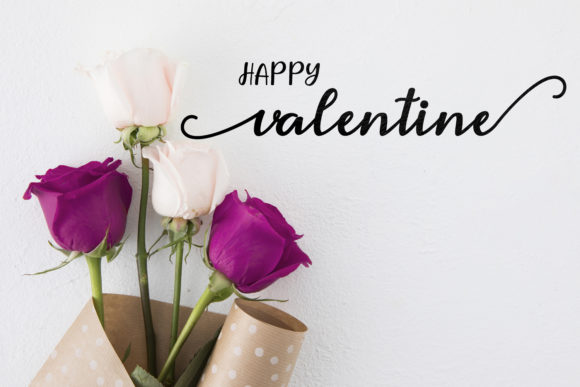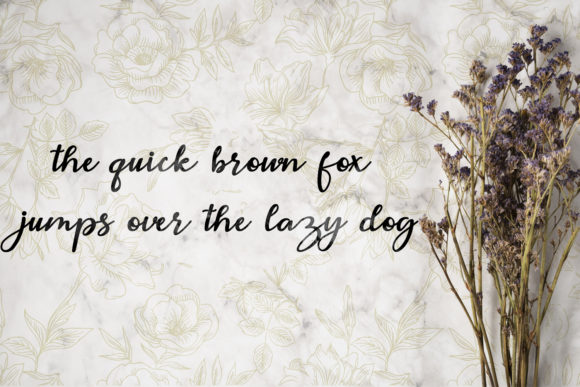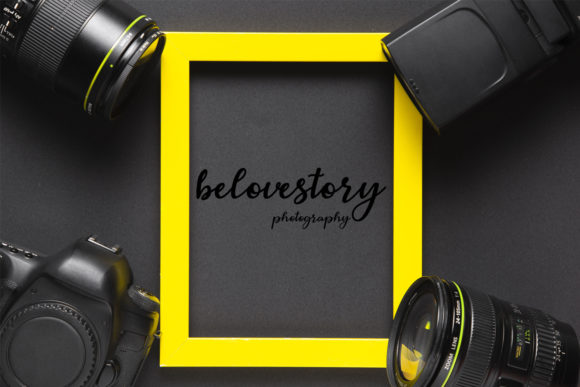
Fablus Font: The Playful Script to Capture Your Heart
Fablus is a cute, sweet and simply adorable font that will make you fall in love with its playful script. This charming font is perfect for designers and crafters looking to add a touch of whimsy and fun to their projects. In this article, we’ll dive into the world of Fablus Font, exploring its features, uses, and why it’s a must-have for any creative looking to make a statement.
The Charm of Fablus Font
Fablus Font is a script font that exudes playfulness and charm. Its cute and sweet design makes it perfect for projects that require a touch of personality and whimsy. The font’s adorable letters and flowing connections will capture your heart and inspire your creativity. Whether you’re working on a DIY project, a branding campaign, or a craft, Fablus Font is sure to bring a smile to your face and a spark to your design.
Features of Fablus Font
Fablus Font boasts a range of features that make it a versatile and user-friendly font. Some of its key features include:
- Playful script design: Fablus Font features a playful script design that’s perfect for adding a touch of whimsy to your projects.
- Cute and sweet letters: The font’s letters are designed to be cute and sweet, making it perfect for projects that require a touch of personality.
- Flowing connections: The font’s flowing connections make it perfect for creating beautiful, hand-written text.
- Easily readable: Despite its playful design, Fablus Font is easily readable, making it perfect for use in a variety of projects.
Uses of Fablus Font
Fablus Font is a versatile font that can be used in a variety of projects, including:
- DIY projects: Fablus Font is perfect for DIY projects, such as crafting, scrapbooking, and card-making.
- Branding campaigns: The font’s playful design makes it perfect for branding campaigns that require a touch of personality and whimsy.
- Crafting: Fablus Font is perfect for crafters who want to add a touch of charm and whimsy to their projects.
- Digital design: The font can be used in digital design, such as social media graphics, blog posts, and website headers.
Why Designers and Crafters Love Fablus Font
Designers and crafters love Fablus Font for its unique and playful design. Here are a few reasons why:
- Unique design: Fablus Font has a unique design that’s sure to make your projects stand out.
- Easy to use: The font is easy to use and can be easily integrated into a variety of projects.
- Versatile: Fablus Font is a versatile font that can be used in a variety of projects, from DIY projects to branding campaigns.
- Adorable: The font’s adorable letters and flowing connections make it a joy to use.
Tips for Using Fablus Font
Here are a few tips for using Fablus Font:
- Use it sparingly: Fablus Font is a playful font that’s best used sparingly. Use it to add a touch of whimsy to your projects, but avoid overusing it.
- Pair it with other fonts: Fablus Font pairs well with other fonts, such as sans-serif fonts and serif fonts. Experiment with different pairings to find the perfect combination.
- Experiment with colors: Fablus Font looks great in a variety of colors. Experiment with different colors to find the perfect shade for your project.
Fablus Font is a playful script font that’s sure to capture your heart. Its cute and sweet design makes it perfect for designers and crafters looking to add a touch of whimsy and fun to their projects. With its versatile design and ease of use, Fablus Font is a must-have for any creative looking to make a statement. So why not give Fablus Font a try and see how it can add a touch of charm and personality to your projects?